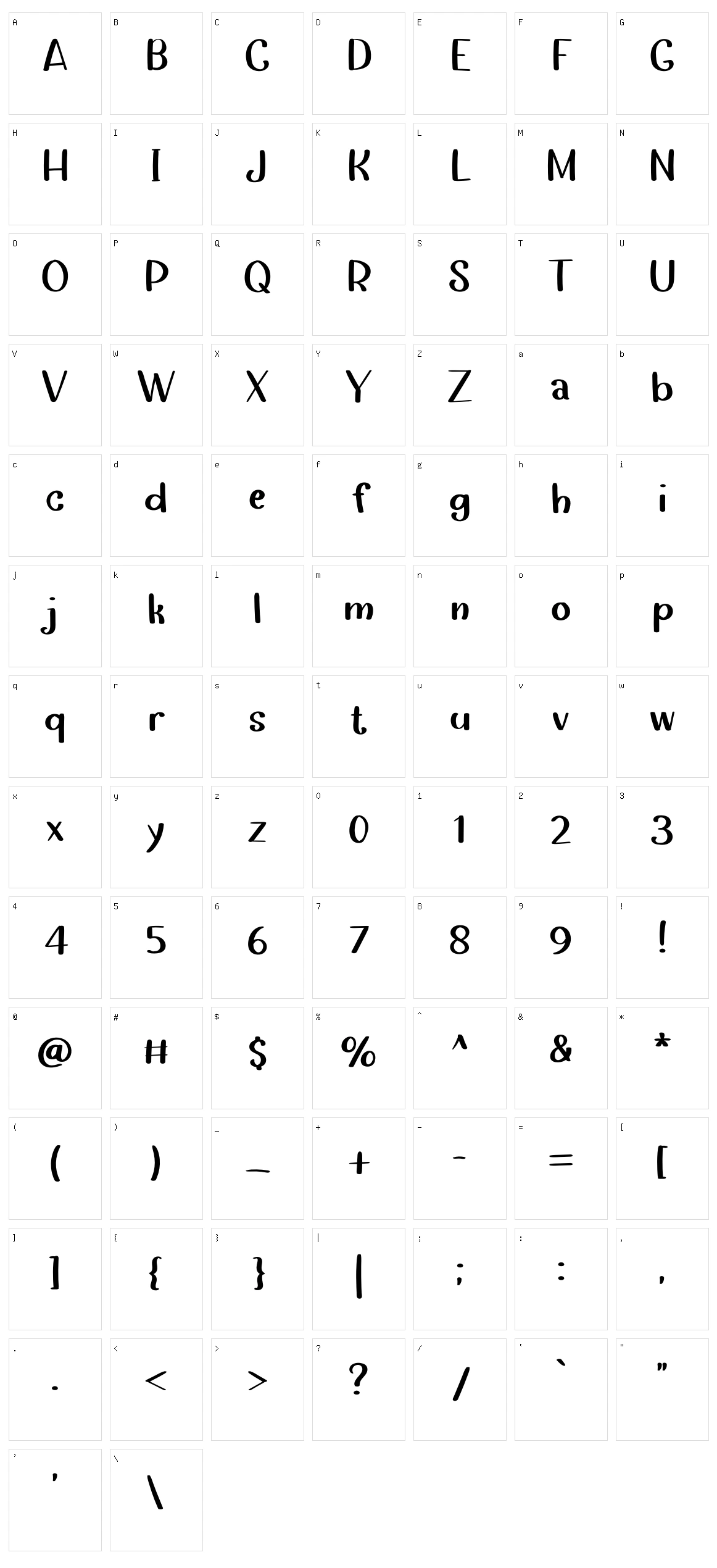
The free font The Monogram is carefully designed by Erik Studio, showcasing a thoughtful balance of creativity and usability and falls under the Script font style. When you download the ZIP file, it contains only 62.45 KB of font files, making it lightweight and quick to download. Please review the license details below to understand permitted usage and distribution rights. If license information is not available, we recommend using this font for personal projects only or contacting the author directly for commercial usage permissions.